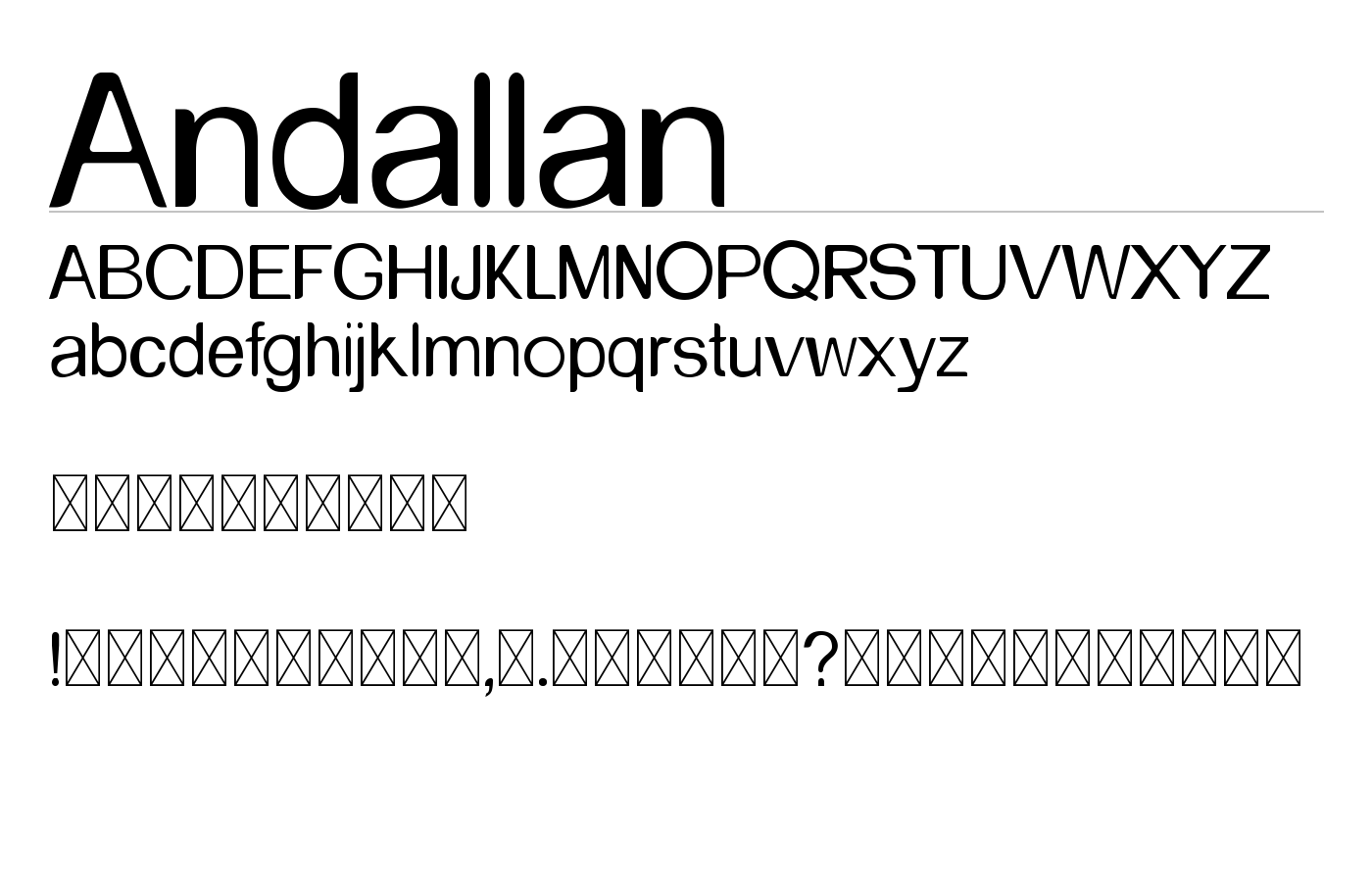
Andallan is a sleek and modern sans serif font characterized by its clean, geometric shapes and consistent stroke weight. It features a normal width, moderate x-height, and rounded terminals that give it a friendly yet professional feel, making it perfect for contemporary branding, editorial headlines, and digital interfaces. This font’s clarity and simplicity make it versatile for both display and text use, especially in projects that seek a fresh, approachable look.
Andallan Font
About Andallan Font
| Font family | Andallan Font |
| Designer | Bagus Aji Wicaksono |